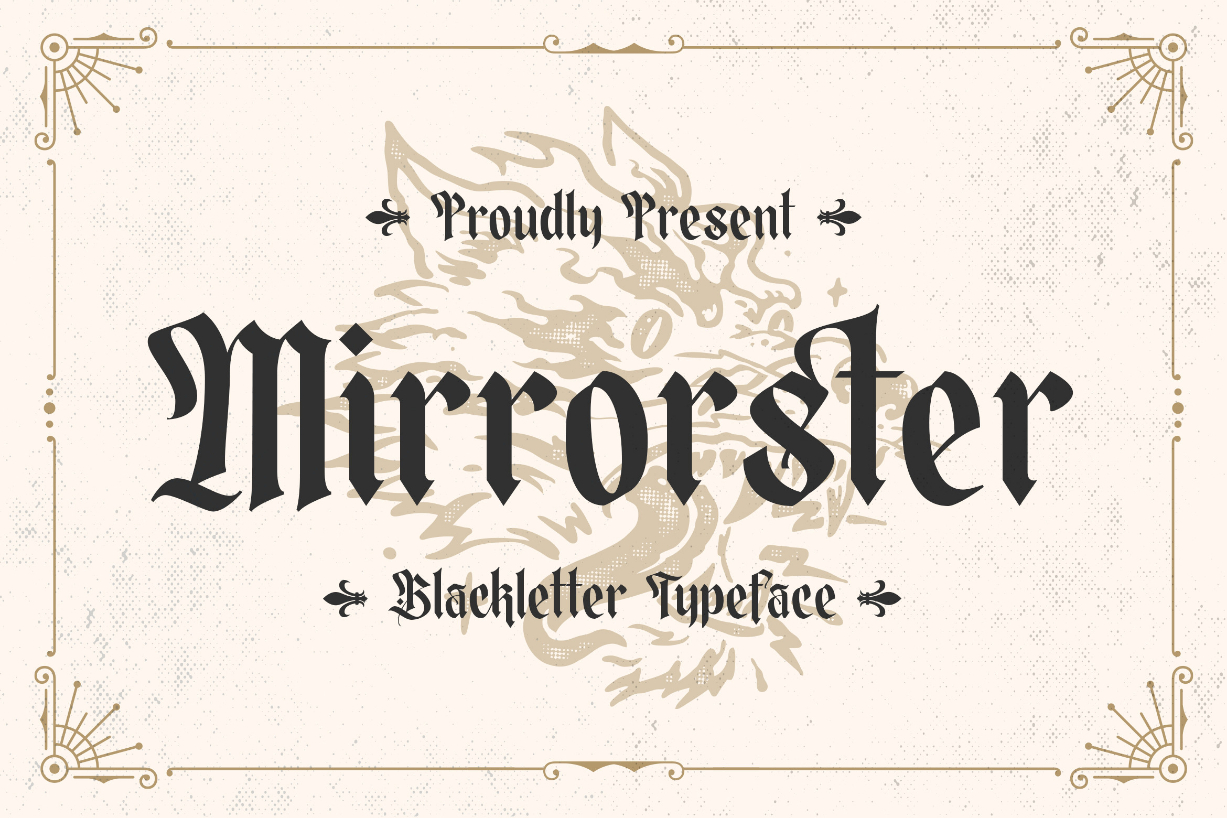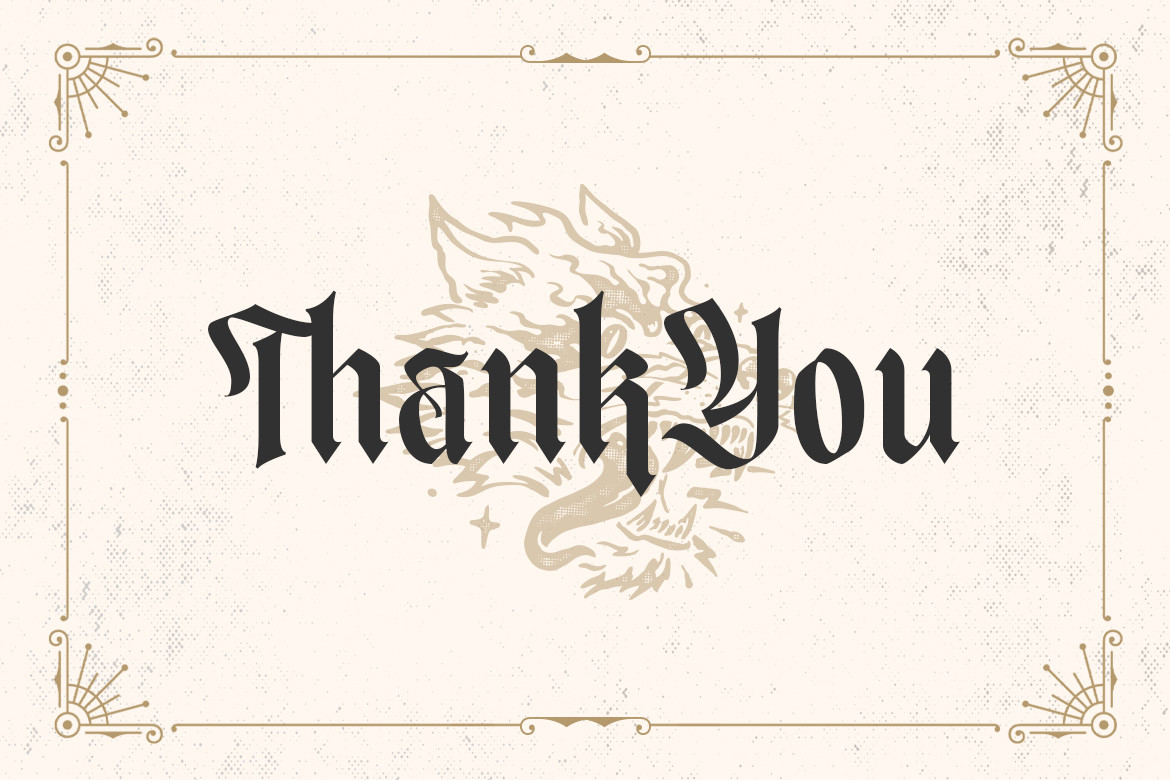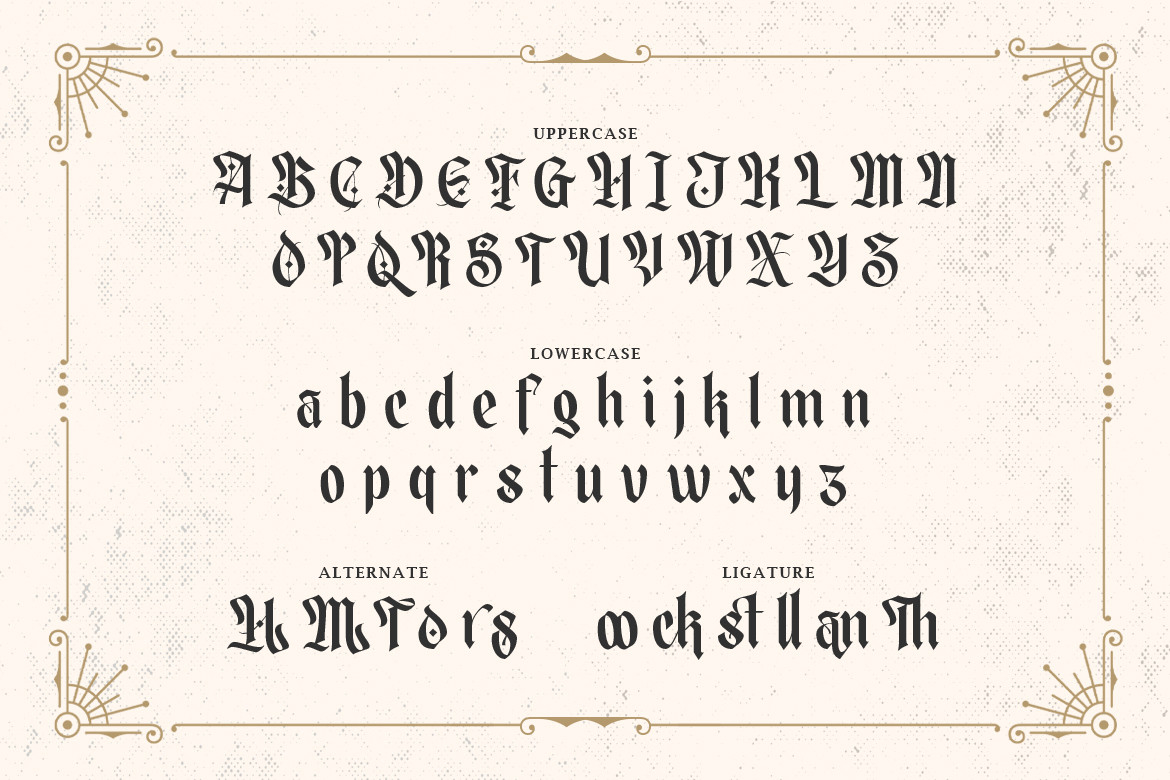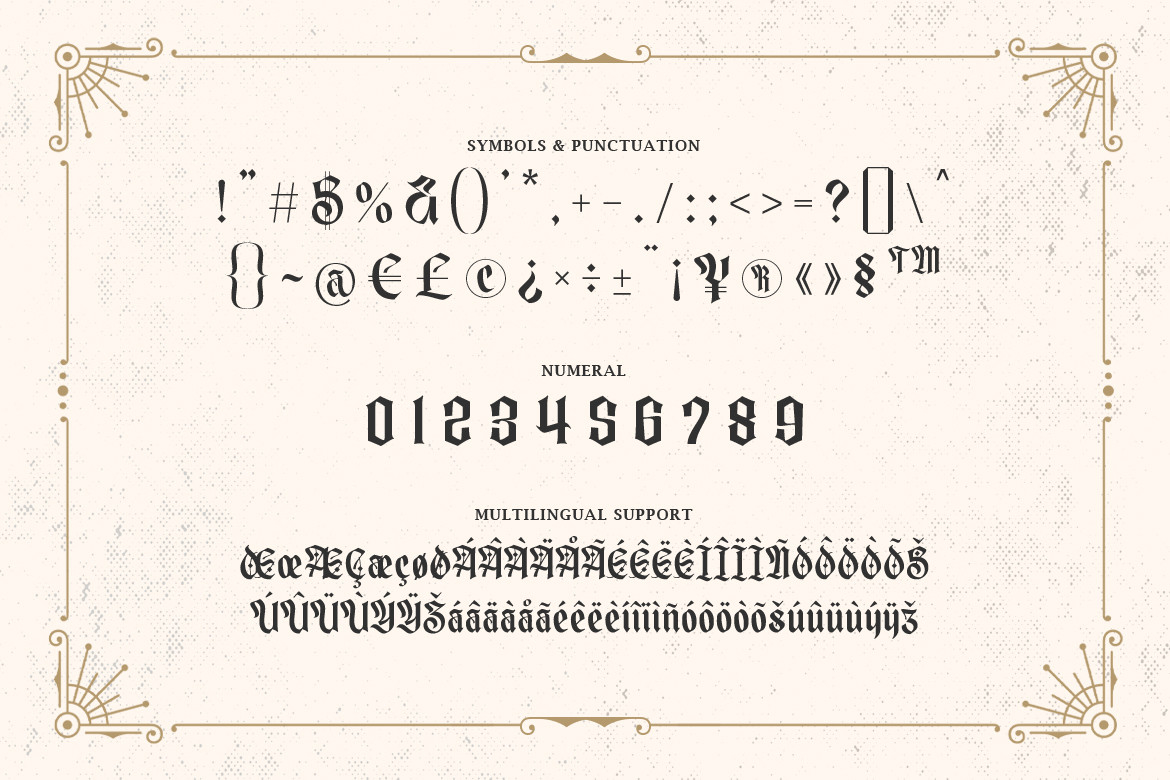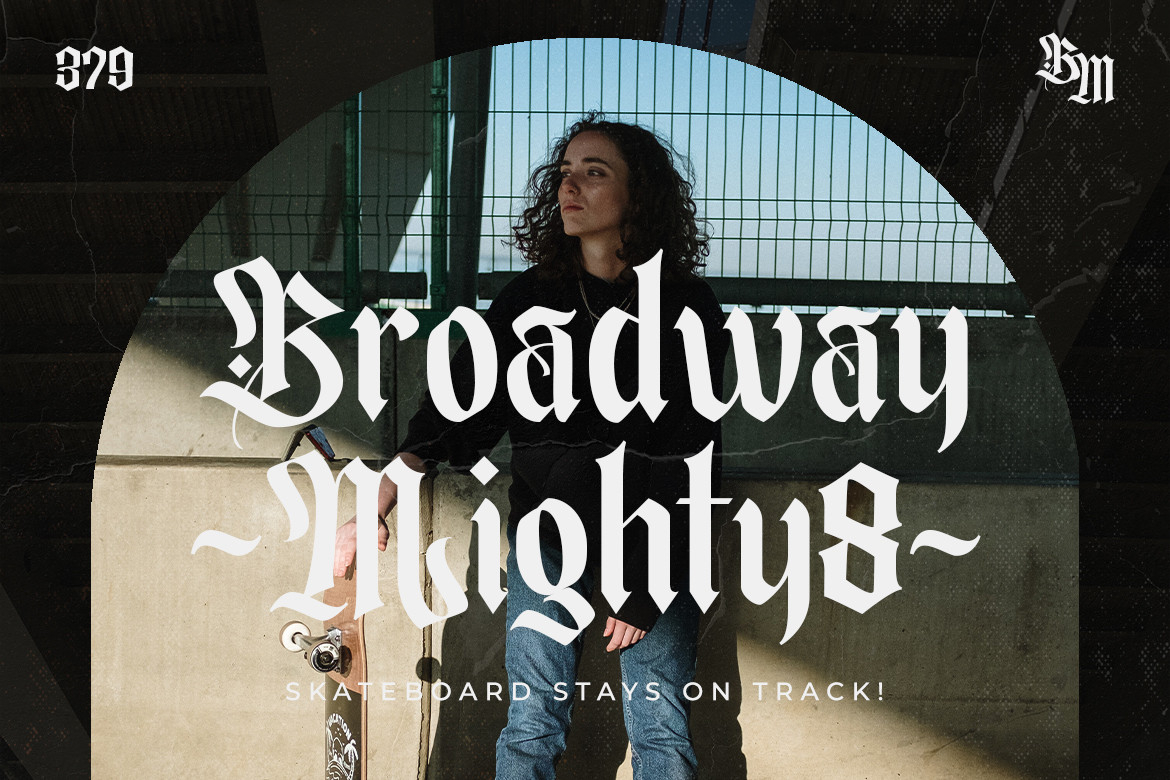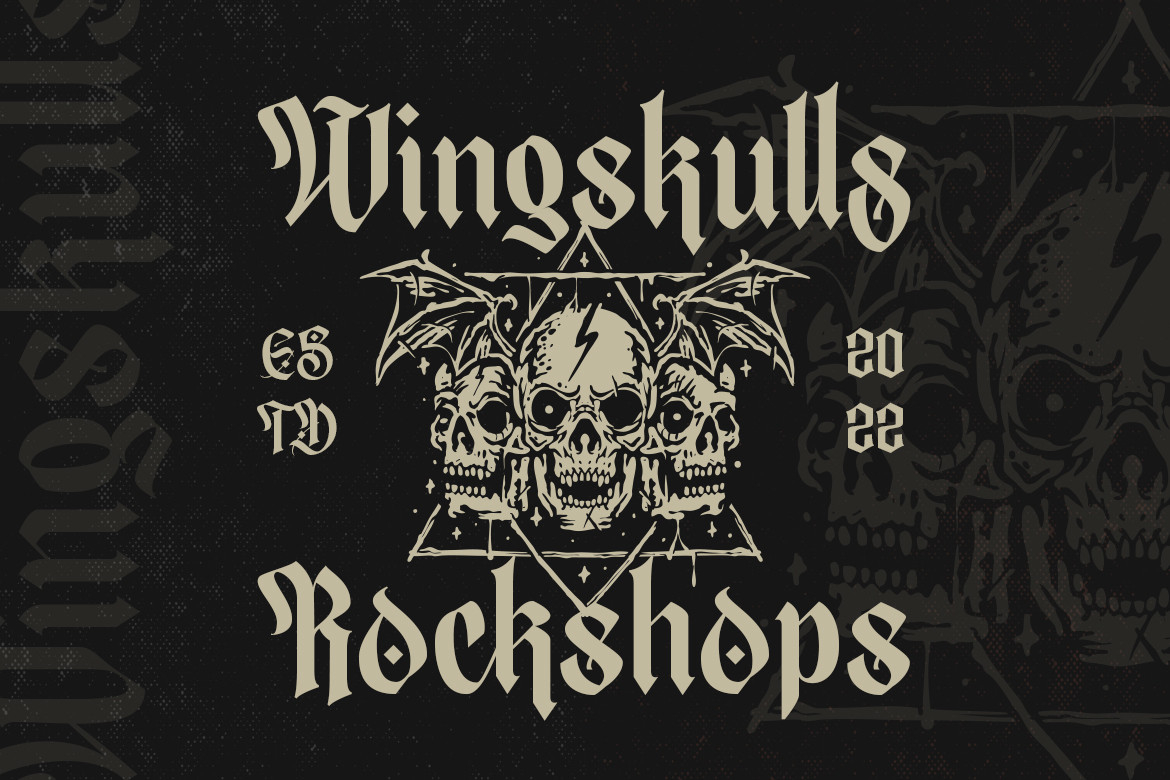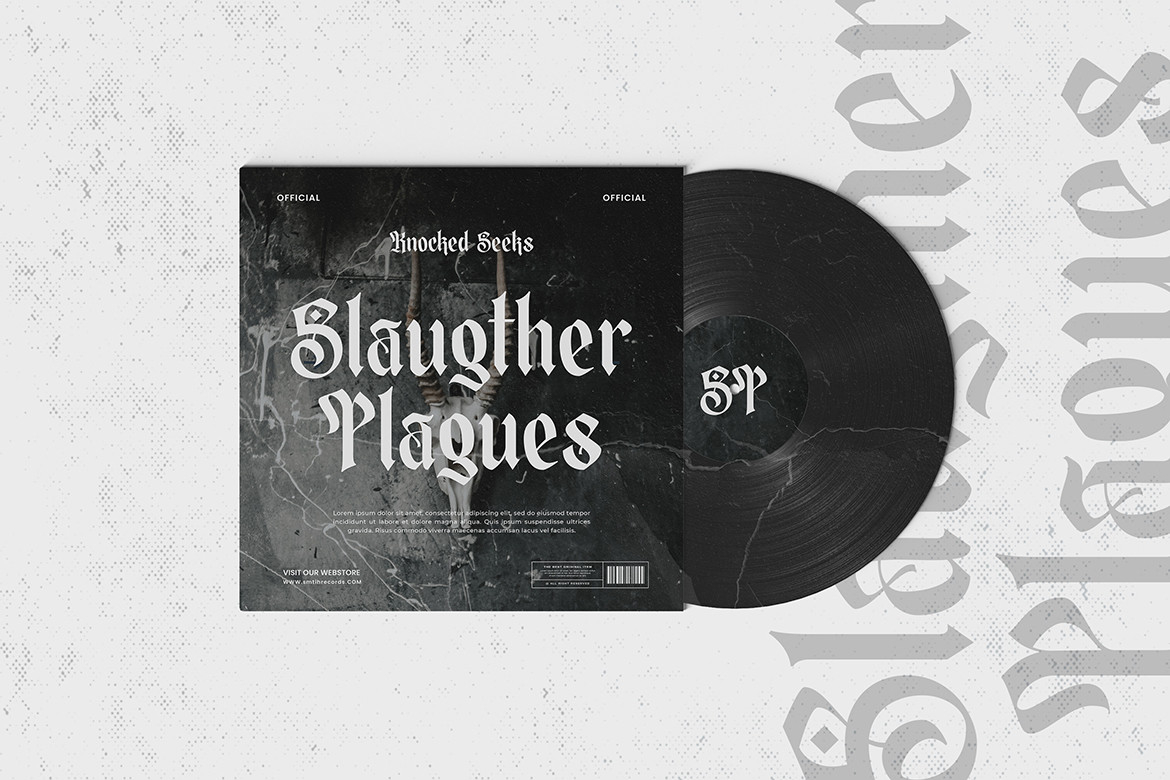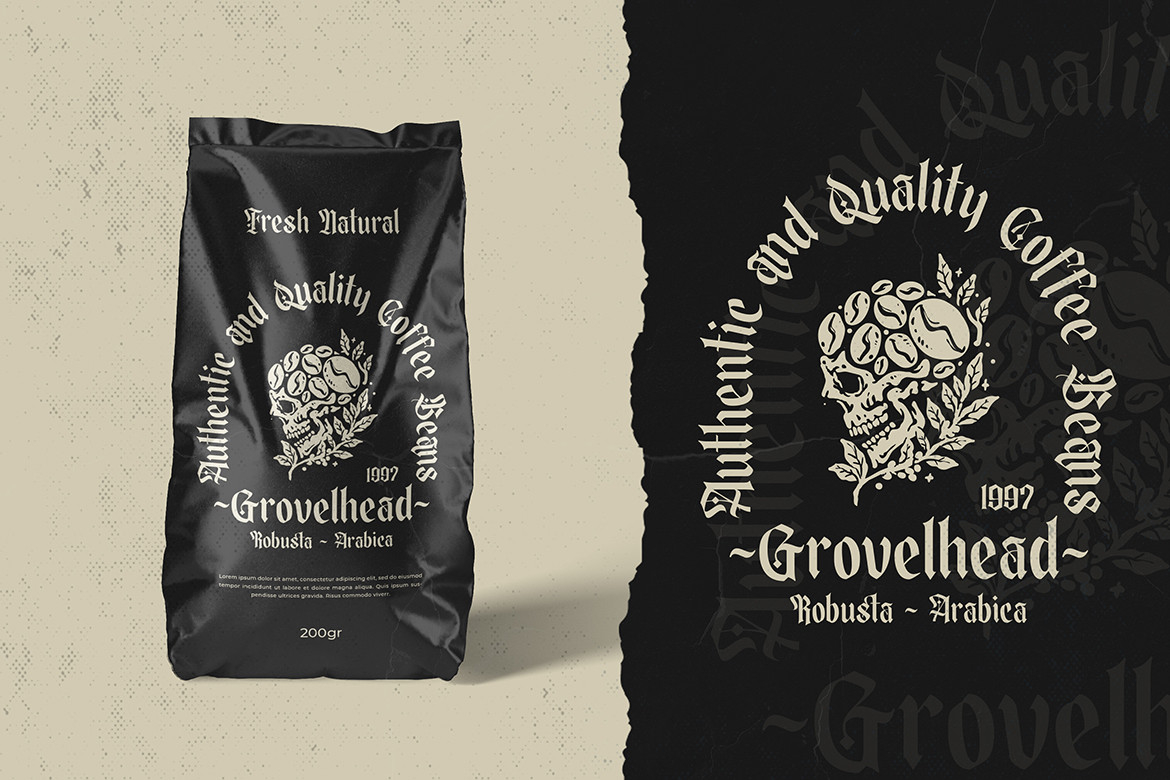
Mirrorster Font
About Mirrorster Font
Immerse yourself in the timeless beauty of “Mirrorster” – a blackletter typeface that exudes elegance and tradition.
With its intricate and bold letterforms, “Miirrorster” pays homage to the rich history of blackletter typography. Each character is meticulously crafted, showcasing a perfect balance between ornate details and legibility, making it ideal for vintage-inspired designs, logos, headlines, and more.
Embrace the classic charm of “Mirrorster” as it adds a touch of sophistication to your projects. Whether you’re working on branding for heritage-inspired businesses, Gothic-themed invitations, or antique-style packaging, this typeface will captivate your audience with its timeless aesthetics.
Experience the allure of “Mirrorster” and let the beauty of blackletter typography shine through!